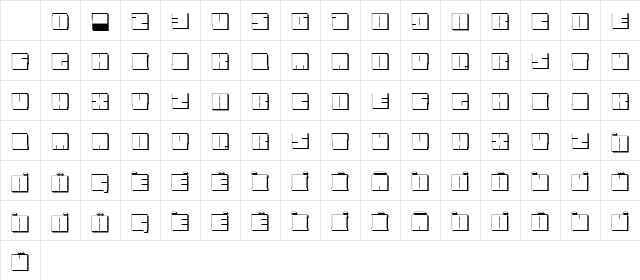
Blockman-outlined is built around its visual character rather than neutral utility - its distinctive forms are designed to make an impression at display sizes.
Font Pairing: Pair with a clean neutral sans-serif for body copy to let Blockman-outlined's character lead without overwhelming the composition.
Pro Tip: Use Blockman-outlined exclusively at display sizes - it was designed to be seen, not read at length. Let a neutral companion handle body copy.